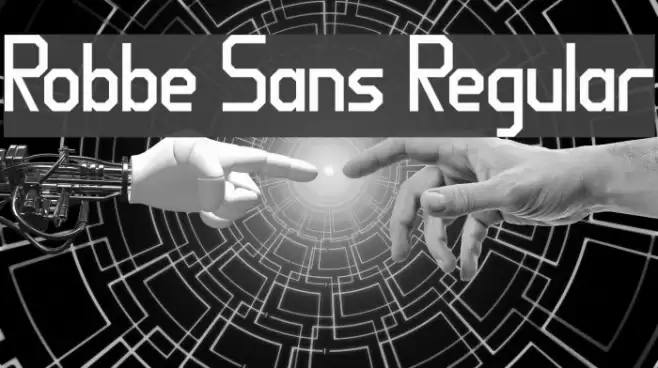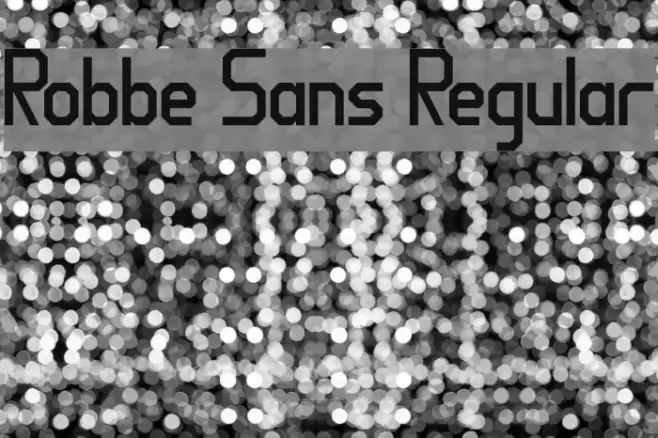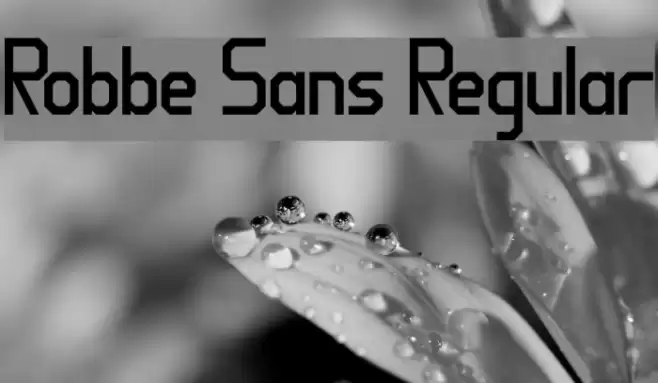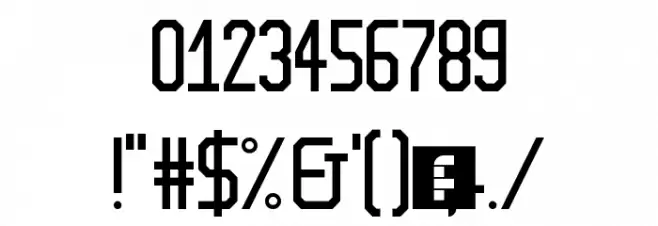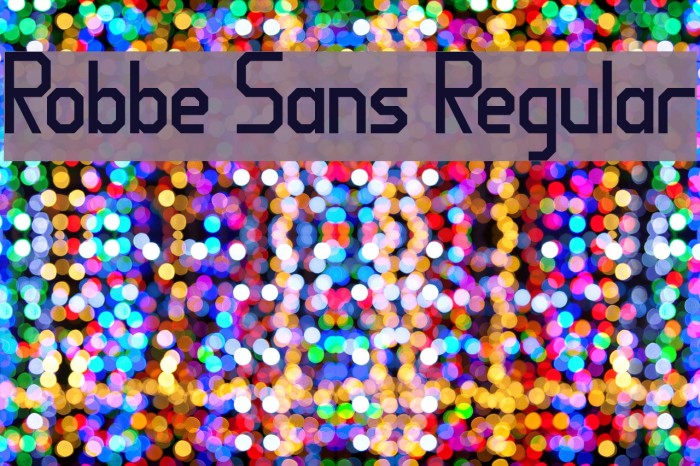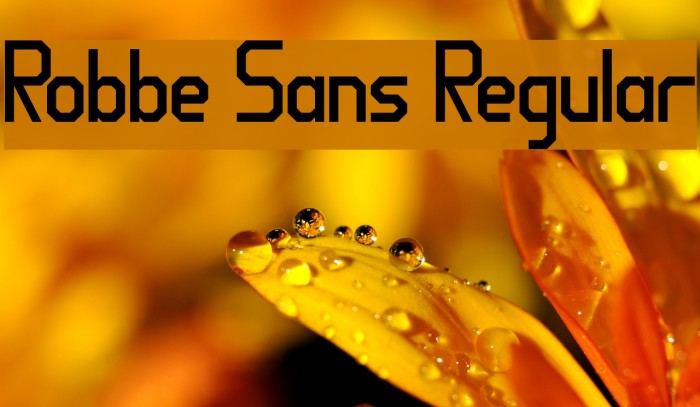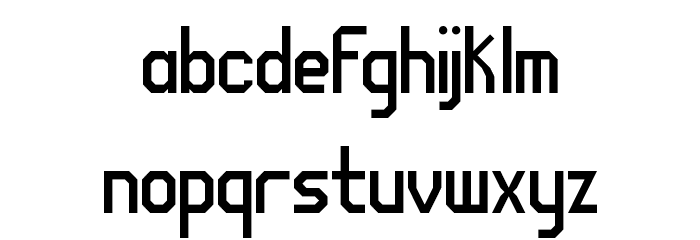
Robbe Sans Regular Font
Robbe Sans Regular Description
This font features a geometric and modern design with a distinct angular style. The uppercase letters are bold and structured, with sharp edges and a uniform stroke width that gives a futuristic feel. The lowercase letters maintain the angular theme but with slightly softer curves, providing a balanced contrast. Numerals are consistent with the overall design, offering clear readability. Special characters are uniquely styled, maintaining the geometric aesthetic. This font is ideal for projects that require a contemporary and edgy look.
A geometric, angular font with a modern and futuristic style from Uncategorized fonts.
- Proposed Projects: Ideal for branding, tech-related designs, modern posters, and digital interfaces.